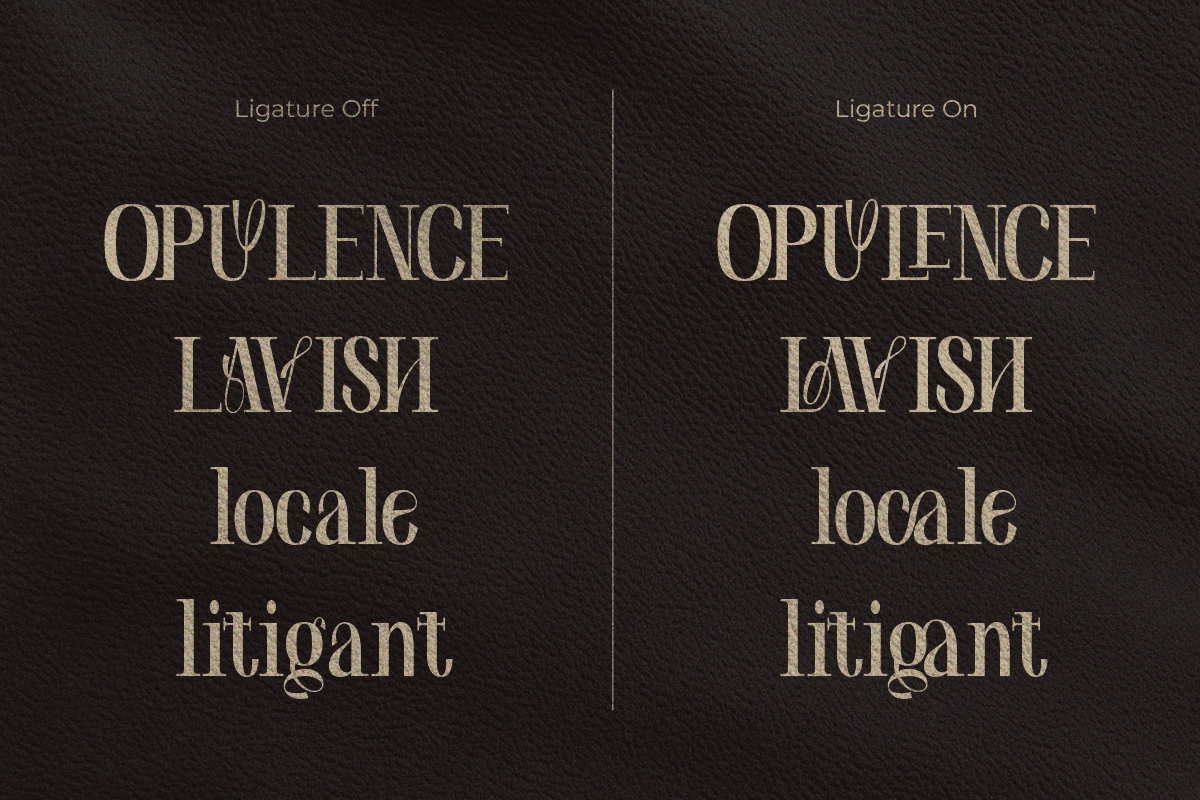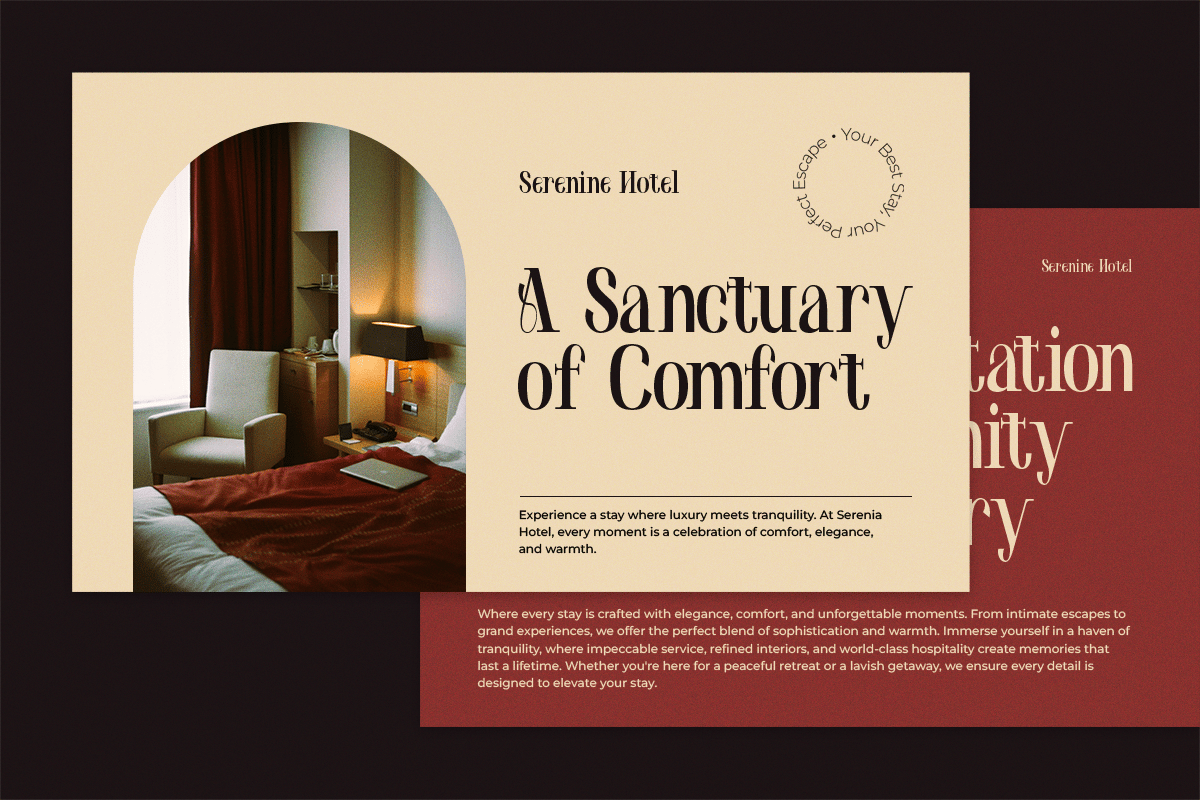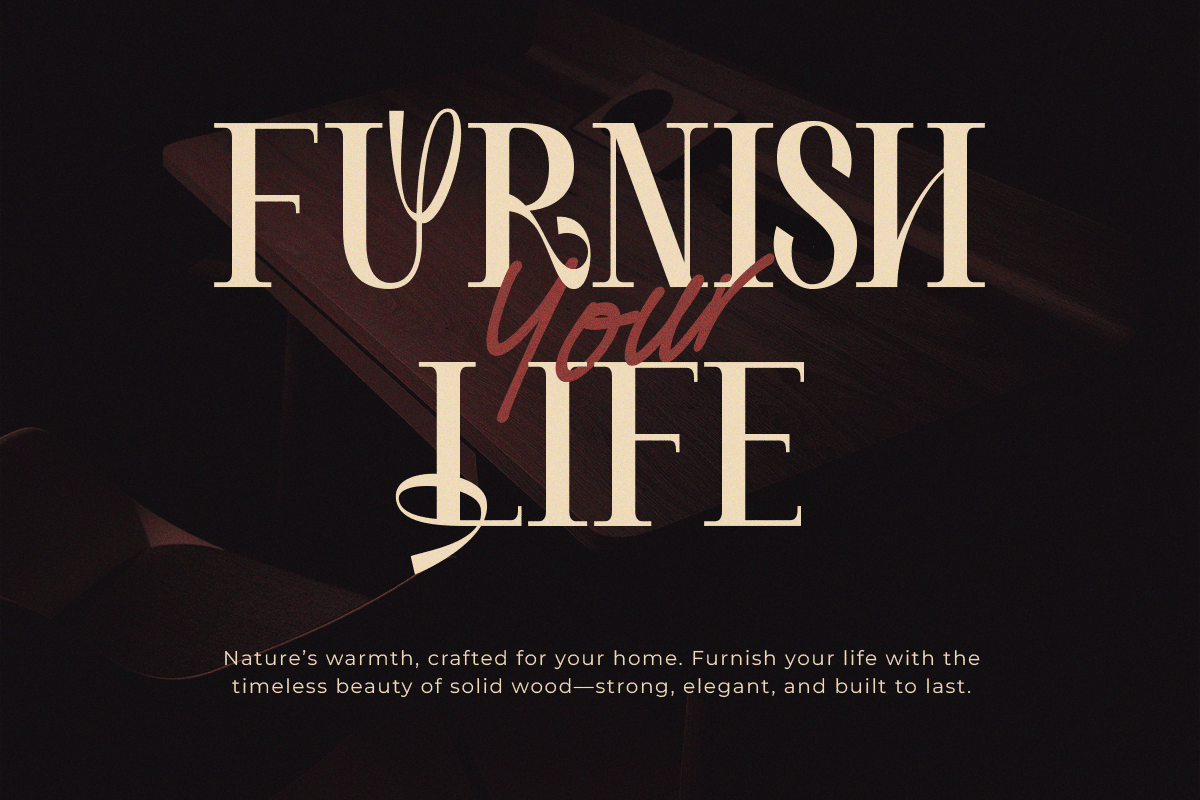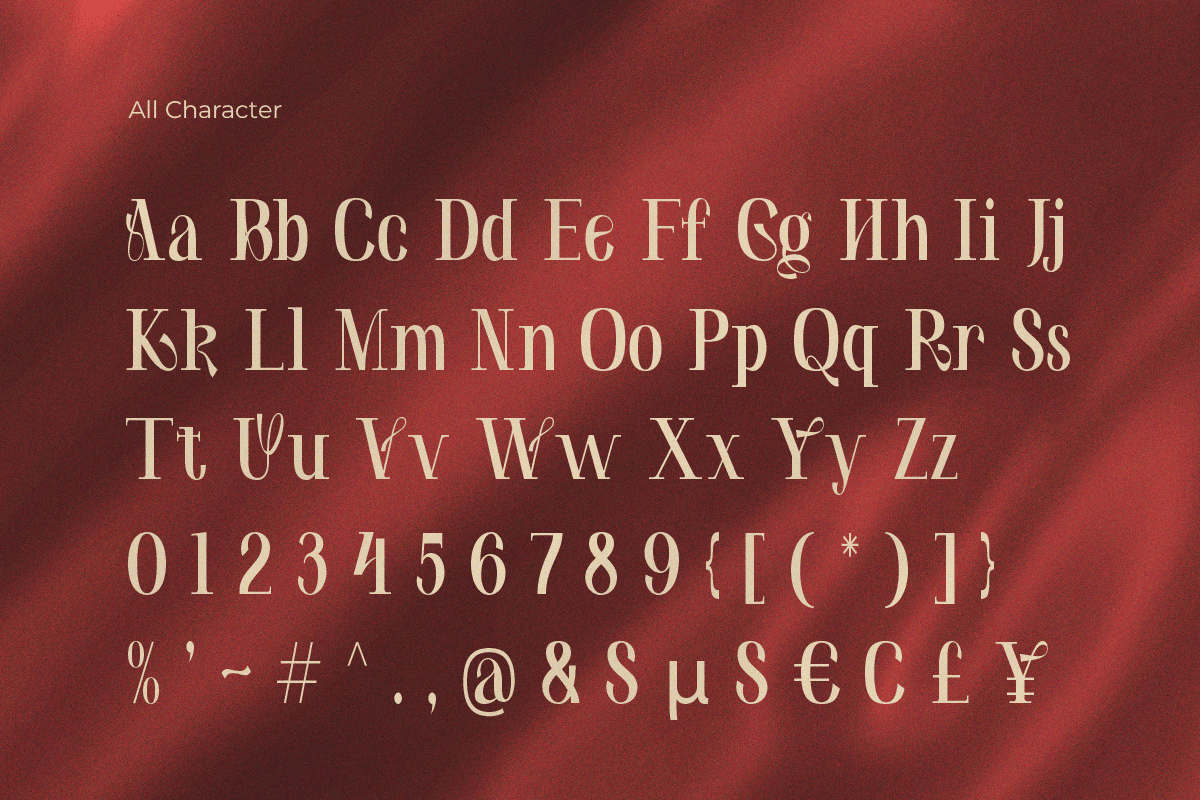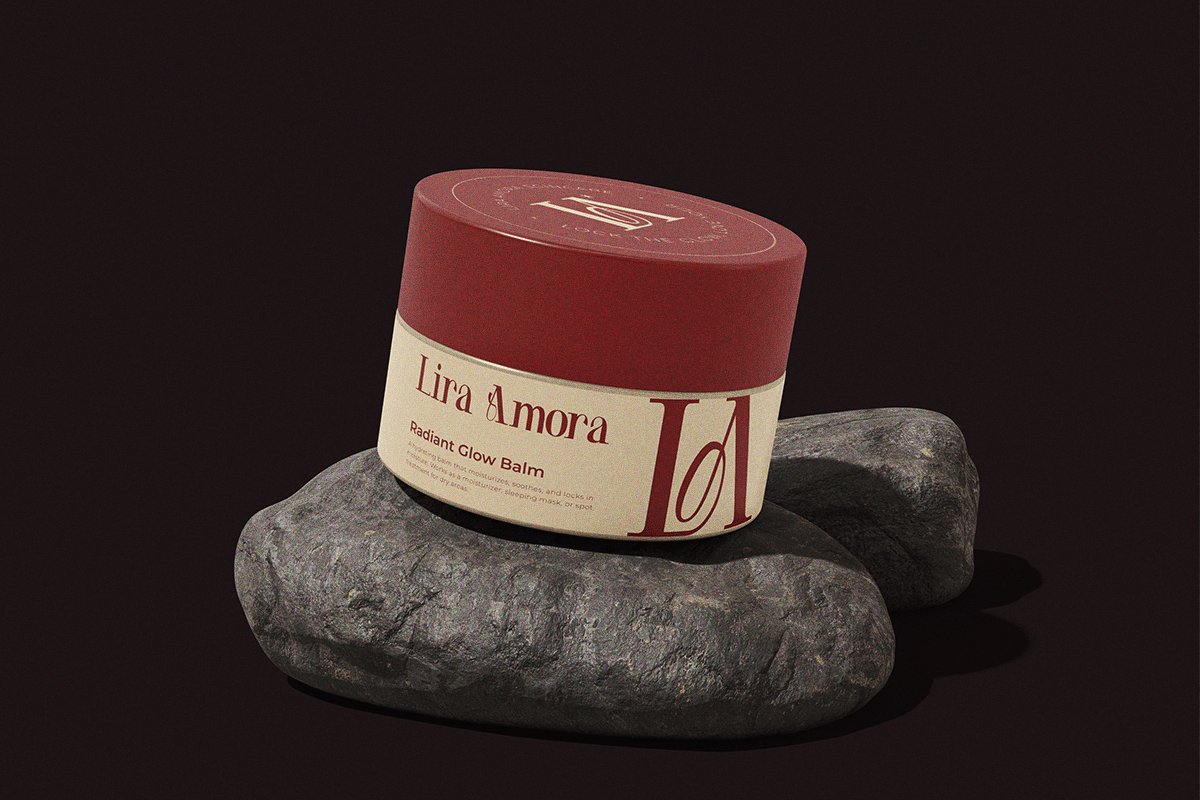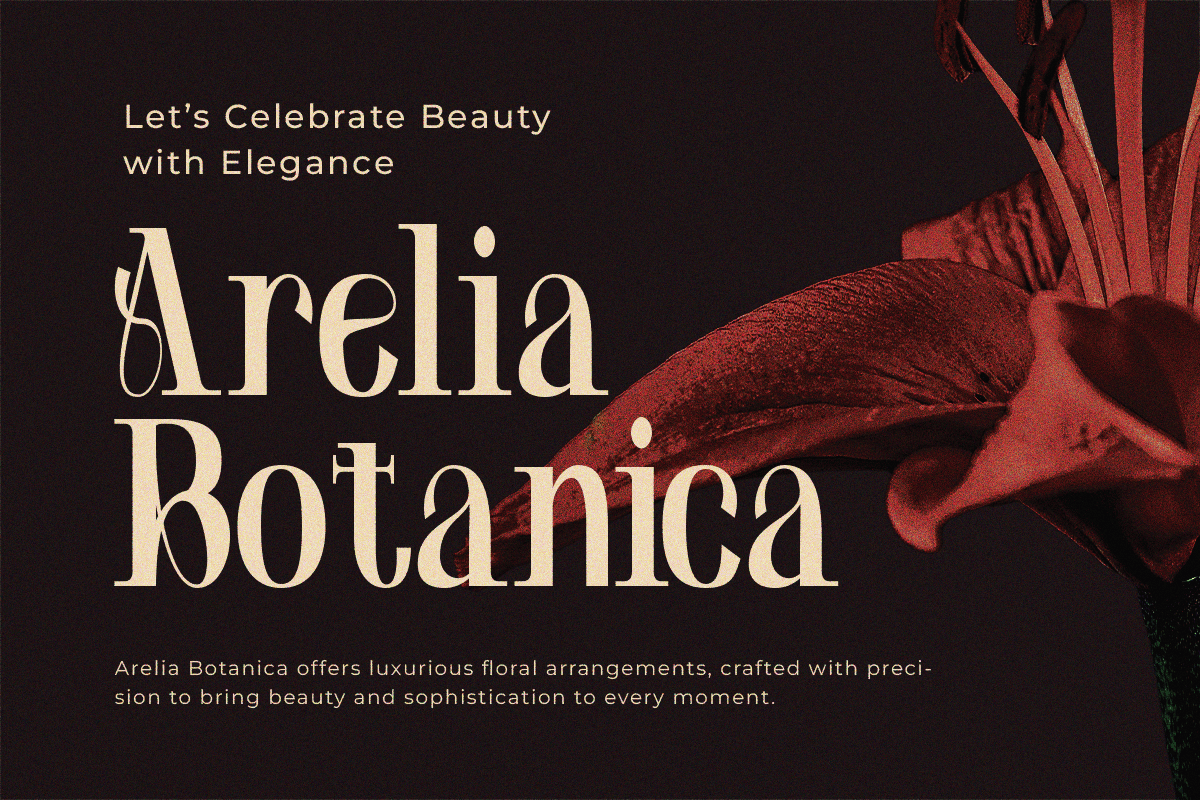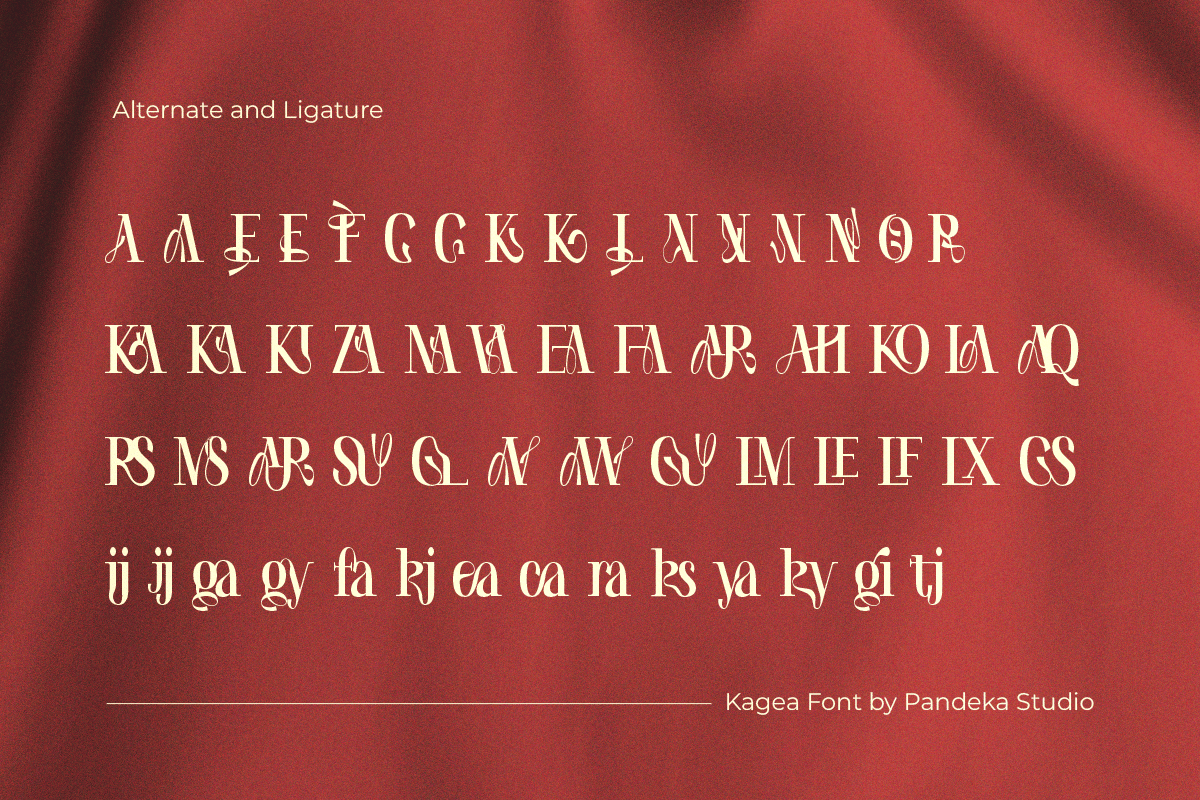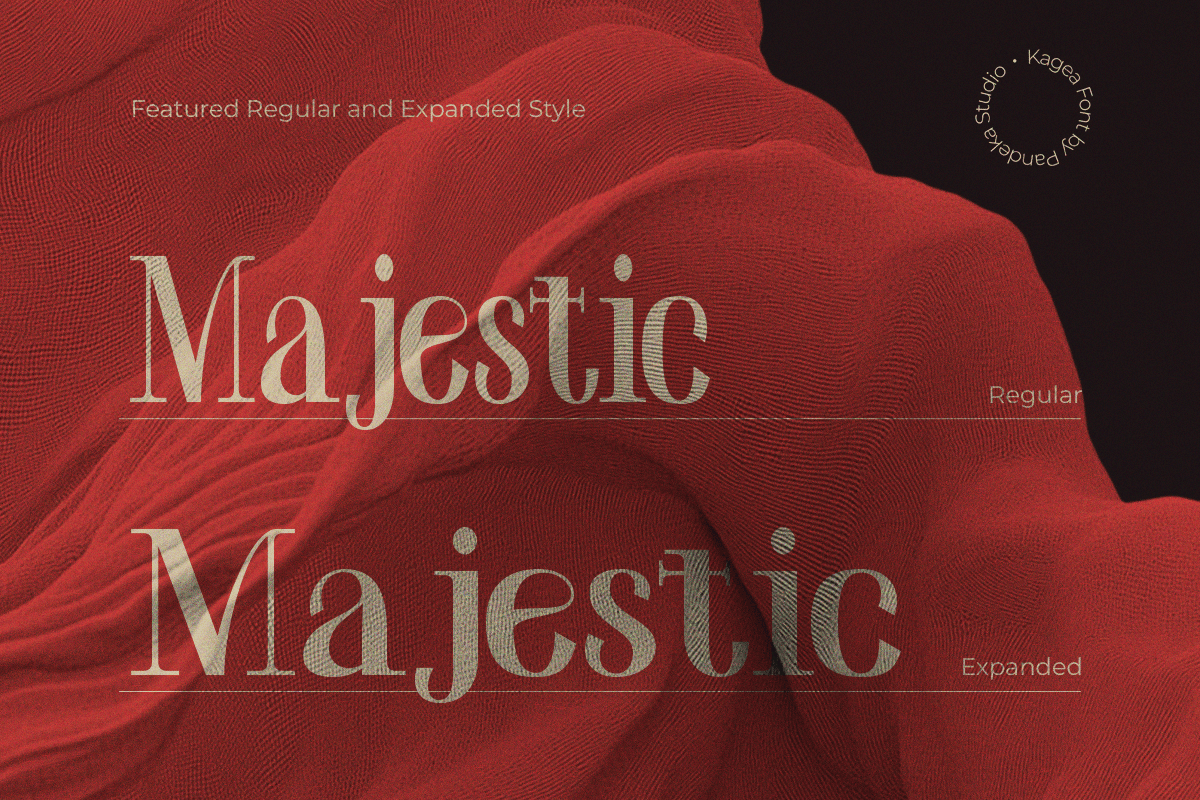
Kagea – Luxury Women Ligature Font
Kagea – Elegant Luxury Serif
Kagea is a sophisticated serif typeface available in regular and condensed styles, featuring 50+ ligatures and alternates with multilingual support. Its refined proportions and chic lettering make it ideal for high-end branding, editorial layouts, premium packaging, fashion labels, and luxury product designs.
- 2 Style: Regular and Condensed
- Full Character Set: Uppercase, lowercase, numbers, symbols, and punctuation
- 50+ Ligatures and alternates
Language Support: Danish, English, Estonian, Filipino, Finnish, French, Friulian, Galician, German, Gusii, Indonesian, Irish, Italian, Luxembourgish, Norwegian Bokmål, Norwegian Nynorsk, Nyankole, Oromo, Portuguese, Romansh, Rombo, Spanish, Swedish, Swiss-German, Uzbek (Latin)